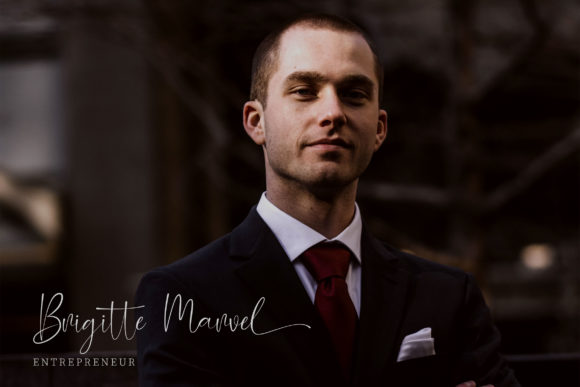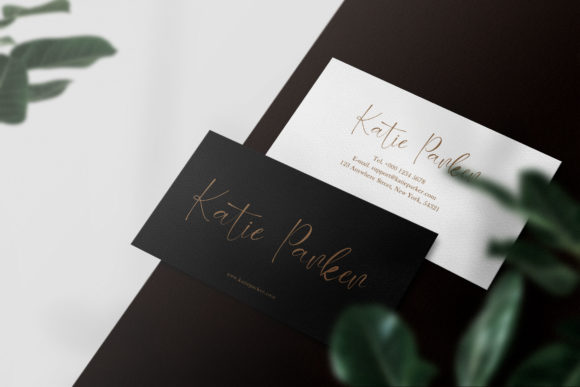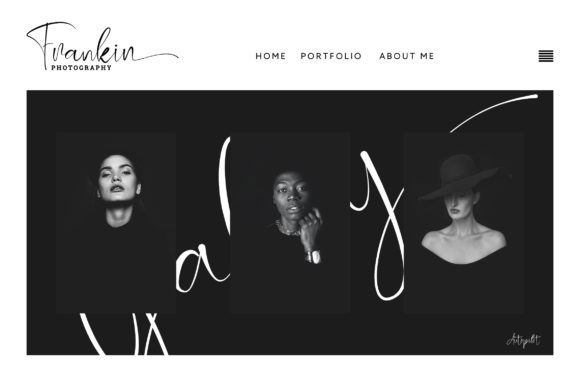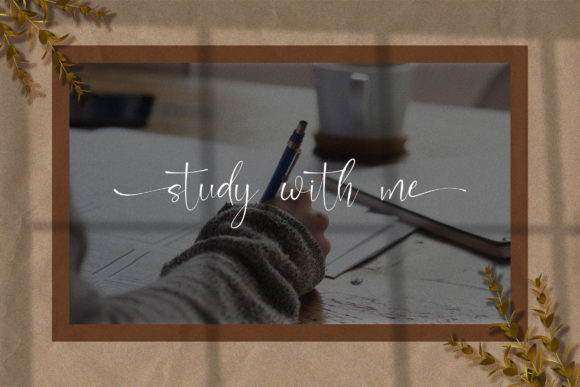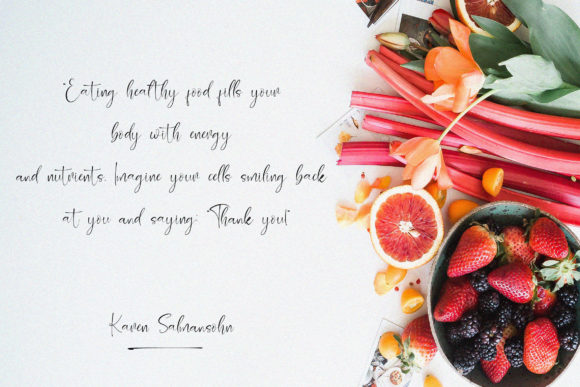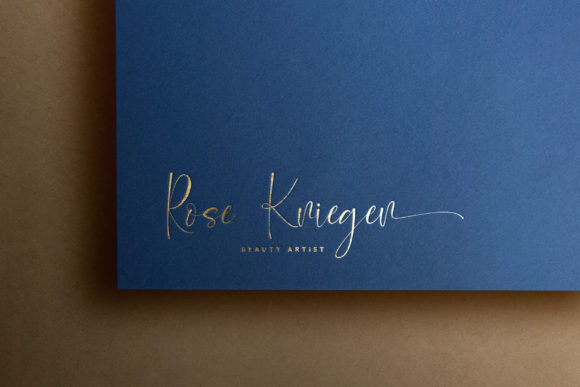
Introducing Autopilot Font: Elevate Your Designs with Elegance and Sophistication
Are you tired of using the same old fonts in your designs? Look no further! Autopilot Font is here to revolutionize your creative projects with its elegant and flowing handwritten style. This stunning font is not only visually appealing but also packed with features that make it a must-have for designers and crafters.
What Makes Autopilot Font Special?
Autopilot Font is an exquisite example of modern calligraphy, boasting a classy and sophisticated feel that’s perfect for a wide range of design projects. Its elegant and flowing script is reminiscent of traditional calligraphy, yet it maintains a fresh and contemporary vibe that’s sure to captivate your audience.
One of the standout features of Autopilot Font is its PUA (Private Use Area) encoding. This means that you can easily access all the glyphs and swashes, giving you complete creative control over your designs. With PUA encoding, you can effortlessly swap out letters, add flourishes, and experiment with different combinations to create unique and eye-catching text.
Autopilot Font is incredibly versatile, making it suitable for a wide range of design projects, including:
• Logos and branding materials
• Packaging and product labels
• Advertising and marketing materials
Why Choose Autopilot Font?
With so many fonts available, why choose Autopilot Font? Here are just a few reasons why this font stands out from the rest:
• Elegant and sophisticated design: Autopilot Font exudes class and sophistication, making it perfect for high-end designs.
• Easy to use: With PUA encoding, you can easily access all the glyphs and swashes, making it simple to create stunning text.
• Versatile: Autopilot Font is suitable for a wide range of design projects, from logos and branding to social media graphics and packaging.
• Contemporary and fresh: This font maintains a modern feel, ensuring your designs look fresh and up-to-date.
Tips for Using Autopilot Font
To get the most out of Autopilot Font, here are a few tips:
• Experiment with different sizes: Autopilot Font looks stunning in large sizes, but it can also be used effectively in smaller sizes for body text.
• Play with swashes and glyphs: Take advantage of the PUA encoding to add flourishes and interest to your text.
• Pair with complementary fonts: Combine Autopilot Font with other fonts to create a unique and visually appealing design.
Autopilot Font is a game-changer for designers and crafters looking to elevate their designs with elegance and sophistication. With its stunning handwritten script, PUA encoding, and versatility, this font is sure to become a favorite in your design arsenal. So why wait? Fall in love with Autopilot Font and bring your projects to the highest levels!